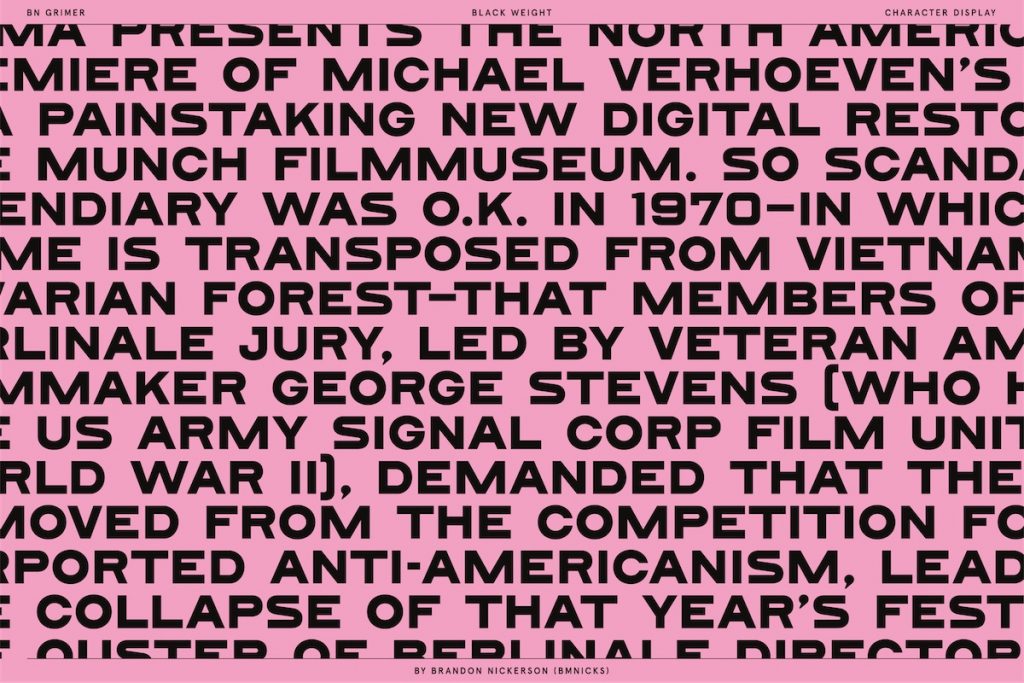
Back Story
“A font’s main purpose is to proclaim, and that is exactly what she was designed for,” says Brandon Nickerson of his new BN Grimer,a bold, sans serif that seamlessly mirrors the minimalism trend. Before designing Grimer, Nickerson found himself sifting through archive.org where he stumbled upon an antique type specimen book of sketches from the 1900s. While flipping through the sketches, he discovered a geometric sans serif designed on a grid; and while interested in the type, he’d seen it before. “It almost felt like this rigid framework responsible for the initial appeal was also holding these characters back,” he says. He wanted to maintain a grid framework, but bring it into the 21st century. And he did—with over 180 glyphs.
Grimer’s stable but contemporary look was born out of New York City, where Nickerson’s side hustle has evolved over time into a strong rolodex. Grimer is one of his latest fonts, marrying the dependability of geometry with a flexible, minimalist nature. “The appeal of Grimer is like what’s happening today,” Nickerson says. “We’re questioning some of the outdated guidelines or frameworks in place that haven’t adapted with the times.” He views Grimer as a font that balances rigidity and evolution—a font of an open-minded generation that questions tradition.
Why is it called Grimer?
Unlike the font itself, Nickerson’s approach to naming is less-than-structured. Right before launching, he went with the first thing that came to mind. “I’ve done this before with previous typefaces,” he explains, “and find it works better sometimes versus spending hours debating the ‘perfect’ name.” He suspects subconsciously there was inspiration behind the industrial aesthetic of Grimer. Each letter has a sound construction—a solid “primer”— that still allows for a bit of nerve, or “grime.” Combine these two landscape concepts and you get Grimer, the epitome of friction.
What are its distinguishing characters?
Grimer’s geometric form is conducive to more repetition than your standard sans serif (here, Nickerson highlights the particular display of B, P, R, S, 2, 3, 5, 6, 8 and 9). But he also appreciates its “surprisingly pleasant contrast in certain characters from bold to thin,” pointing to the font’s G, Q, Z and 5. Yet again, Grimer is a font full of contradictions.
What should I use it for?
Since Grimer is exclusively uppercase and numerals, it serves as a display typeface (think logos, headlines, bold packaging). “I could see Grimer in a progressive, modern culture-focused magazine or editorial platform like Elephant, Brownbook, or Huck, especially if it’s designed on black paper, which allows its bold form to shine,” he says. On Nickerson’s website, he features the font rendered in inverse hues of black and bubblegum pink, to highlight the font’s bold aesthetic. There’s a new-age, punk rock feel to Grimer that says it’s not afraid to be affixed to your hole in the wall bar bathroom, but its sophistication can bring a certain personality to any brand endeavor. For Nickerson, these two opposing colors mimic Grimer’s juxtaposing characteristics. “Pink and black are colors that you typically wouldn’t use together—pink is generally viewed as a soft, feminine color while black is generally viewed as a rigid, dark and mysterious color,” he says. “But when combined, they actually create this unexpected and beautiful chemistry.”
What other typefaces do you like to pair it with?
Grimer is reliable and to-the-point in its execution. Nickerson suggests pairing it with a more artful script, like Kitsune by Andrei Robu. Of course, we’d be remiss not to mention other typefaces brought to you by Nickerson’s studio— like Monoscript, Bergen, Grainville and Rendall; after all, sometimes it’s best to keep it in the family.